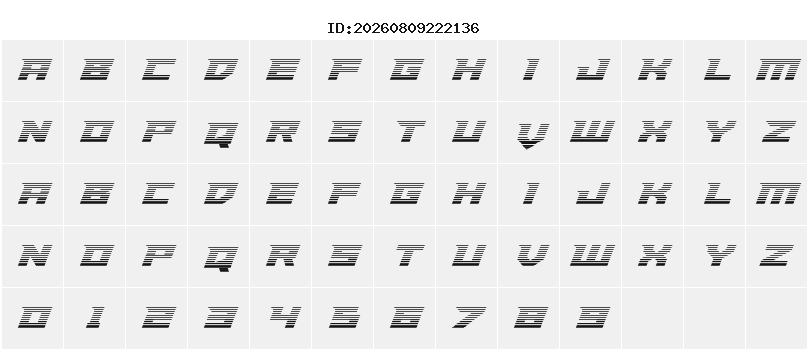
• Font Name: Paladins Gradient
• Full Font Name: Paladins Gradient
About Paladins Gradient.ttf
Paladins Gradient.ttf is a modern, elegant sans-serif font designed for ultimate readability and visual harmony. Perfect for branding, headlines, web design, and print materials.